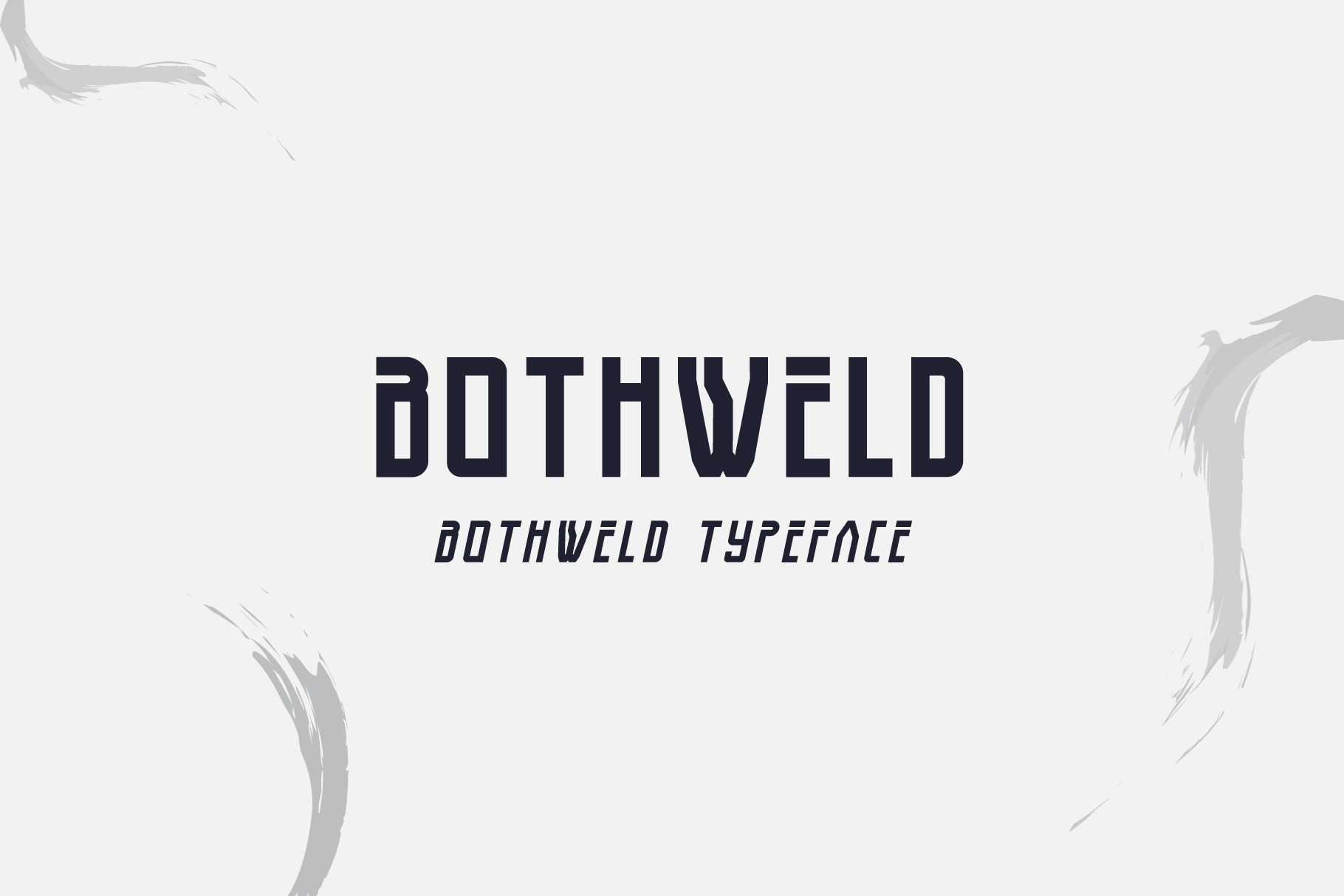
Bothweld Typeface
Proud to introduce a new font: Bothweld Family. This font comes with a Stong Font Sans Serif (Regular, Bold, Outline, Italic, Bold Italic, Outline Italic). You can see in the preview above.
Bothweld Fonts will be perfect for a variety of projects such as logos & branding, invitations, posters, flyers, wedding designs, social media posts, advertisements, product packaging, product designs, labels, photography, watermarks, special events or movie poster titles, like what I do in the preview above.